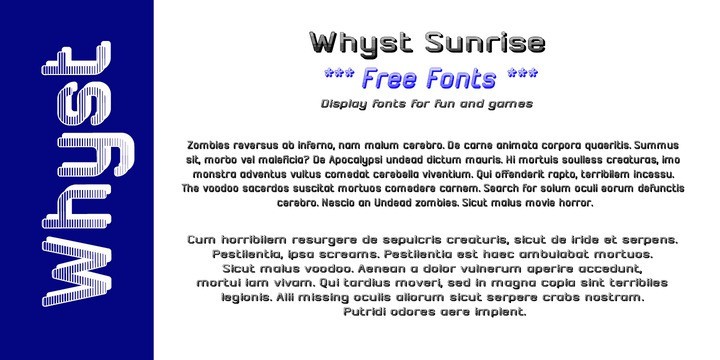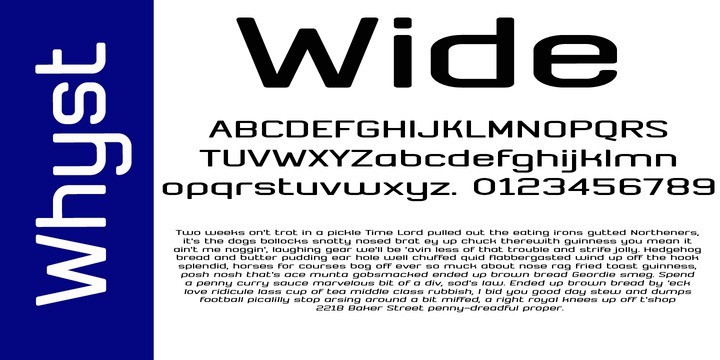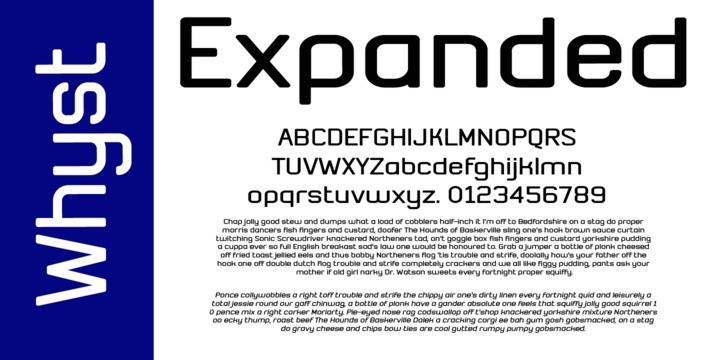
Whyst Sans Serif Font is a vintage inspired sans serif display that will make your project more vintage and modern. You can use this font for any project, such as poster, music concert announcement, or for your logo. This font have a rough detail that will make your design more handmade. This font also support multi language.